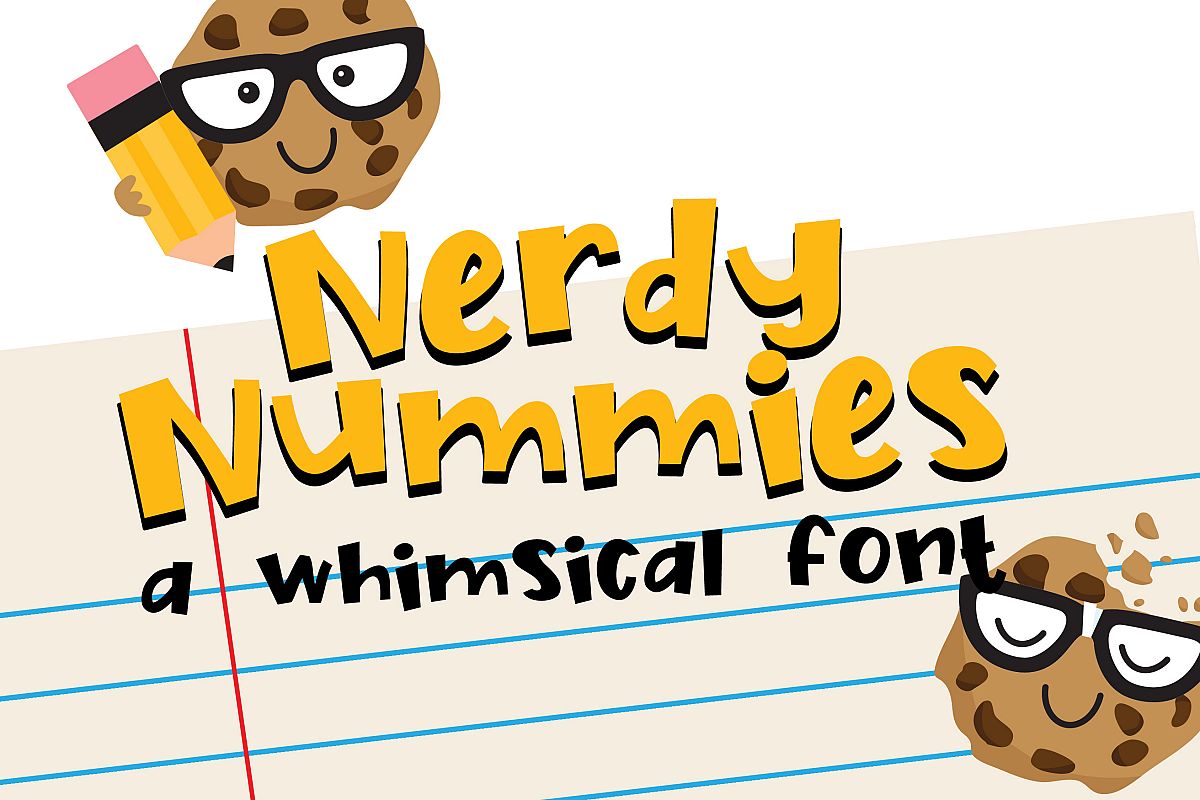
This whimsical hand-crafted font is great for titles, displays, posters and more. There are many bonus characters of delicious "nummies" that are ready to go back to school that you can access through your system's character map.
• Numbers and Symbols
• International Characters
• 19 Bonus characters of nerdy nummies